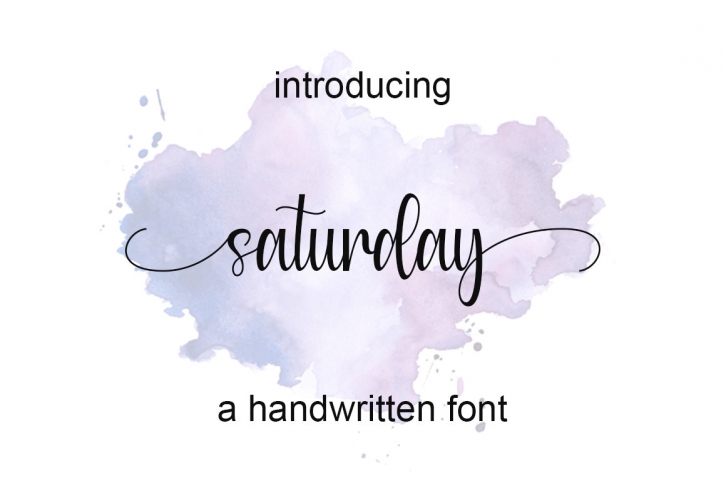
Saturday is an enchanting handwritten font. This versatile typeface has a wide spectrum of applications ranging from greeting cards to headlines. Saturday is PUA encoded, which means you can access all of the glyphs and swashes with ease!